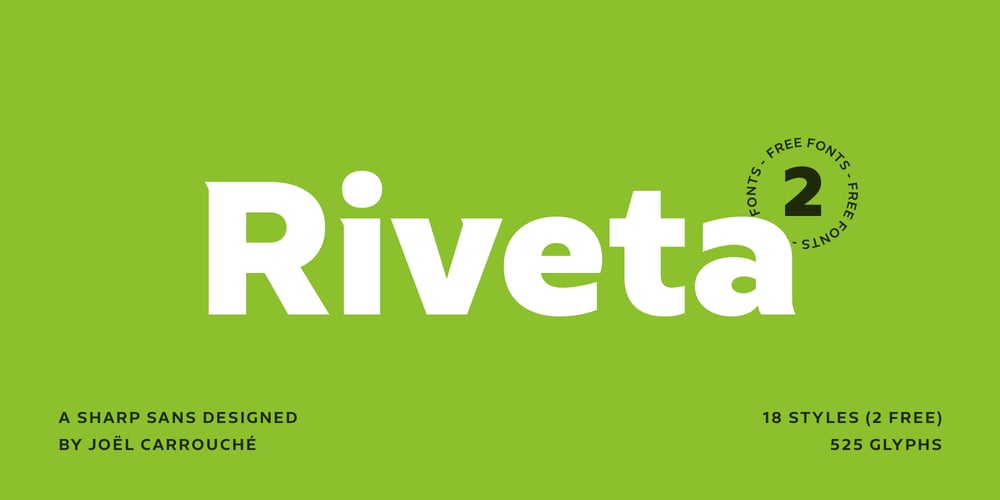
Riveta Font Family was designed by Joël Carrouché and published by JCFonts. Riveta contains 18 styles and family package options. Riveta is a sharp type family available in 18 styles, designed in 2021 by Joël Carrouché. Medium and medium italic styles are 100% free to use. The typeface features a simple and solid geometric construction, with straight terminals and a very discrete triangular serif that gives the font some extra spice in big size. Riveta is equipped for advanced typography, with features such as ligatures, tabular and proportional figures, arrows and icons, stylistic alternates, case-sensitive forms, fractions, scientific inferiors and superiors, and circled figures.